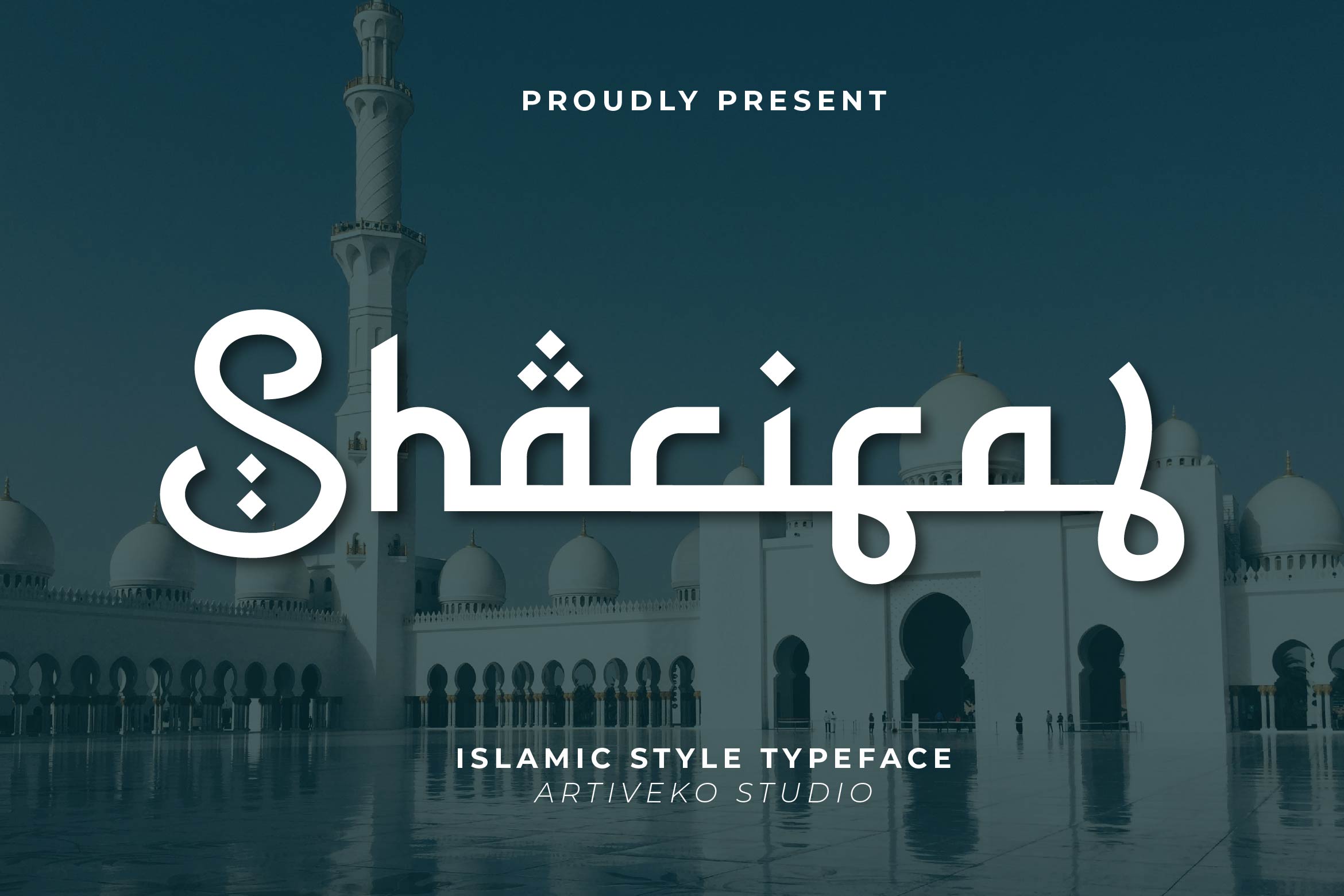
- Sharifa Display Arabic Font
Sharifa is a beautifully crafted display font inspired by traditional Islamic art and Middle Eastern calligraphy. With its ornamental details, graceful curves, and unique letterforms, Sharifa brings a touch of cultural richness and sophistication to your designs.
Perfect for Ramadan and Eid greetings, Islamic event posters, mosque logos, packaging, book covers, wedding invitations, and social media graphics, Sharifa combines heritage aesthetics with modern usability. Its decorative style adds authenticity while maintaining excellent readability for both display titles and branding purposes.
This font includes uppercase and lowercase letters, numerals, punctuation, multilingual support, and stylistic alternates for added creativity.
Celebrate tradition with elegance — Sharifa is the perfect Islamic display font for meaningful and visually stunning designs.